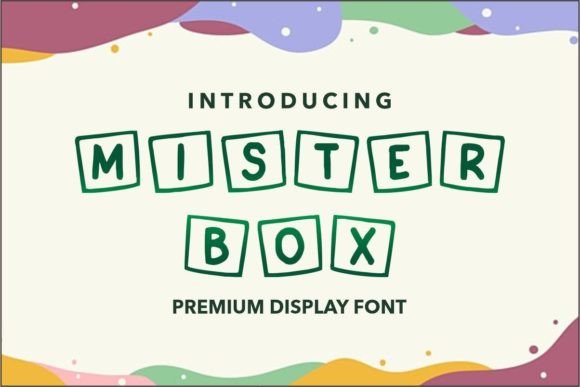
Mister Box Font
Prepare to be enthralled by Mister Box, a display font that's sure to ignite your imagination and bring life to your creative visions. With its captivating curves and playful personality, this font is not just a collection of letters; it's an open invitation to let your creativity soar.
Mister Box is the perfect companion for adding a touch of whimsy and charm to your designs. Picture this: an eye-catching poster that leaps off the page, inviting passersby to delve into a world of wonder. Or a vibrant website that dances with animated characters, each letter a portal to a new adventure. With Mister Box, the possibilities are limitless.
Step into the enchanting realm of Mister Box and discover a font that speaks to your soul. Embrace its quirky personality and watch as your designs transform into masterpieces. Mister Box is your trusty sidekick, ready to help you craft visuals that resonate with your audience and leave an everlasting impression.
Unleash your creativity and let Mister Box be your guide. Each glyph is meticulously crafted to evoke a sense of joy and excitement. From playful curves to energetic strokes, Mister Box dances across your screen, captivating every eye that beholds it.
Make a statement with Mister Box. Create designs that demand attention, leaving your audience spellbound. This font is your secret weapon to crafting unforgettable visuals that linger in the minds of your viewers. Elevate your brand, captivate your customers, and etch your name into the annals of creative excellence.
Dive into the world of Mister Box and unlock a treasure trove of possibilities. Let your imagination run wild as you explore the endless creative avenues this font offers. With Mister Box as your ally, you'll create designs that spark conversations, ignite imaginations, and leave an indelible mark on the world.